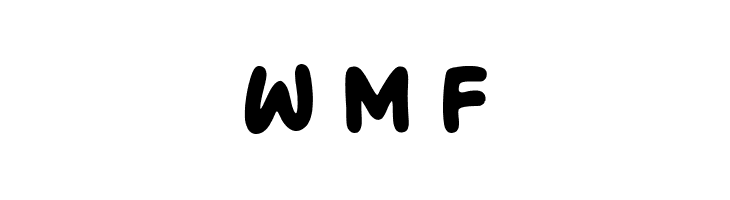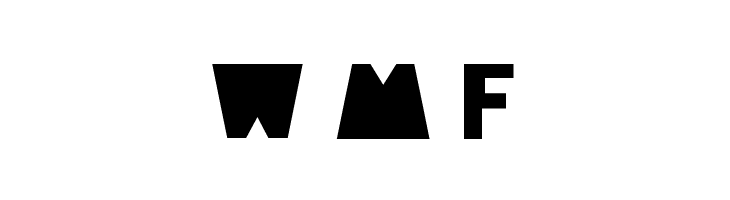
A bold, playful font with rounded, hand-drawn characters.
A decorative font with intricate, ornamental uppercase letters and streamlined lowercase characters.
A playful, handwritten font with flowing, cursive-like strokes and a modern aesthetic.
A bold, modern blackletter-inspired font with sharp, angular strokes.
A bold, hand-painted style font with dynamic, brush-like strokes.
A bold, geometric font with a modern and playful style.
A bold, geometric display font with intricate line details and a dynamic style.
A bold, geometric font with intricate line patterns and sharp edges.
A bold, angular font with a playful and energetic style.
A bold, geometric font with a playful, modern aesthetic and three-dimensional effect.
A bold, geometric font with futuristic cut-out shapes.
A bold, geometric font with a futuristic, outlined style.
A bold, Gothic-inspired font with sharp, angular lines and intricate detailing.
A bold, geometric font with a modern and impactful design.
A bold, italic font with a modern and dynamic style.
A futuristic, geometric font with angular letterforms and a modern aesthetic.
A bold, italic, futuristic font with angular, streamlined characters.
A bold, geometric font with a futuristic, digital aesthetic.
A bold, geometric font with a futuristic and industrial design.
A futuristic, angular italic font with a bold and dynamic style.
An expressive, brush-like font with dynamic, irregular strokes.
An elegant script font with flowing, intricate loops and swashes.
An elegant and flowing script font with graceful curves and loops.
A bold, geometric font with a futuristic, tech-inspired style.
An edgy, angular font with a rebellious, graffiti-inspired style.
A textured serif font with a hand-drawn, modern twist.
A bold, playful font with rounded edges and a hand-drawn look.
An elegant and fluid script font with cursive strokes and a refined style.